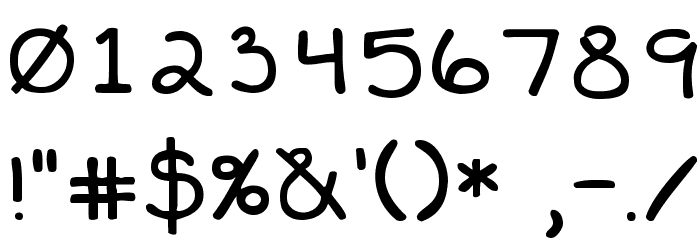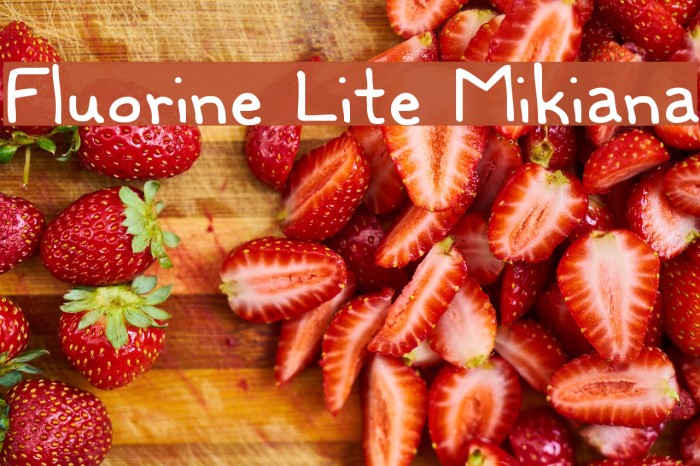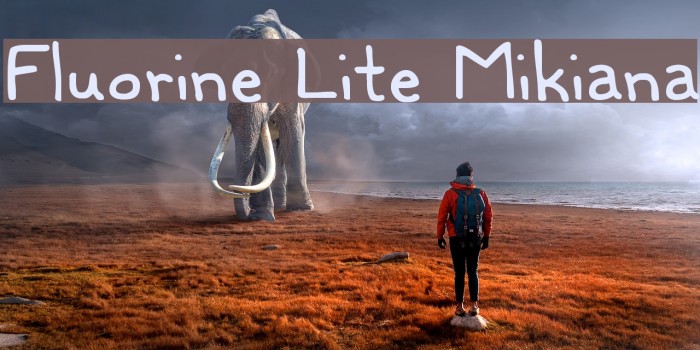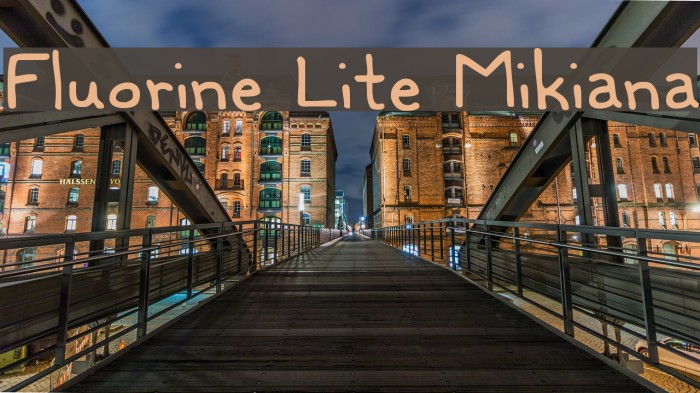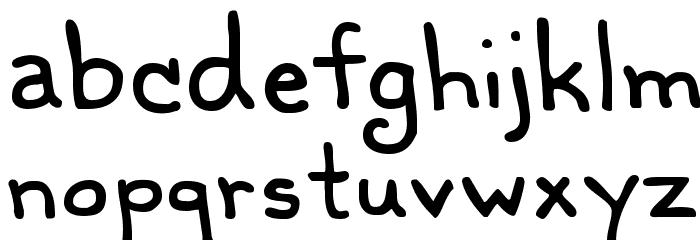
Fluorine Lite Mikiana Font
This font features a playful and casual handwritten style, characterized by its rounded and slightly irregular letterforms. The uppercase and lowercase letters maintain a consistent flow, with a friendly and approachable appearance. The numerals and special characters follow the same informal aesthetic, making the font suitable for creative and informal projects. The strokes are uniform in thickness, providing a clean and legible look. This font's whimsical nature makes it ideal for projects that require a personal touch, such as invitations, greeting cards, or children's books.
A playful, handwritten font with rounded, casual letterforms.
• Proposed Projects: Ideal for invitations, greeting cards, children's books, and creative projects.
• Category: Handwritten
• Contrast: Low
• Overall Style: Casual
• Use Case: Headlines, Informal text, Creative projects